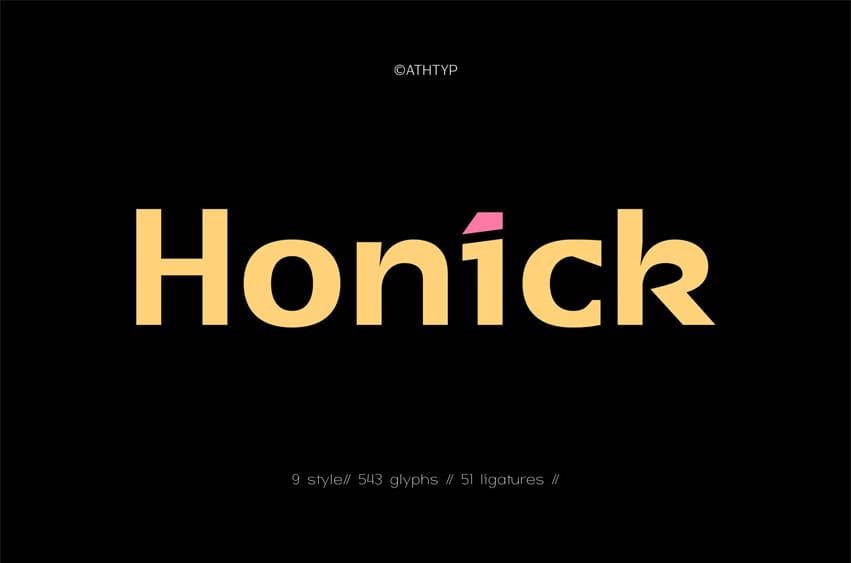
Honik Font is a clean and modern geometric sans serif font designed for designers, brands, and creatives who want to stand out with confident, contemporary typography. With 9 font weights from Thin to Black, HonÃk offers maximum versatility for any design project — from minimalist logos to bold editorial headlines.
This font family includes 543 glyphs, 51 unique ligatures, and full multilingual support for 90+ languages. Every letter is carefully crafted with smooth geometric curves and subtle, unique cuts, giving HonÃk a friendly yet professional personality.
HonÃk is a clean, modern geometric sans serif font designed for designers, brands, and creatives who want confident, contemporary typography. With 9 font weights from Thin to Black, HonÃk offers maximum versatility for any design project — from minimalist logos to bold editorial headlines.
Versatile Geometric Sans Serif for Modern Design. Each letterform is carefully crafted with smooth geometric curves and subtle cuts, giving HonÃk a distinctive personality without losing its clean, professional look.
Complete Font Family with 9 Weights
- Thin
- ExtraLight
- Light
- Regular
- Medium
- SemiBold
- Bold
- ExtraBold
- Black
Multilingual Support & Unique Ligatures HonÃk includes 543 glyphs and 51 ligatures to expand your creative possibilities. It supports over 90 languages with extended Latin scripts, making it the perfect typeface for global brands and multilingual projects.
Perfect for Branding, Editorial & Web Design. Use HonÃk for modern branding, stylish packaging, editorial headlines, and digital graphics. From sleek startups to bold fashion brands — HonÃk elevates your design with its geometric charm.
Why Designers Love HonIk HonÃk stands out with its clean geometric style, unique cuts, and playful yet professional feel. It’s flexible, easy to pair, and timelessly modern.